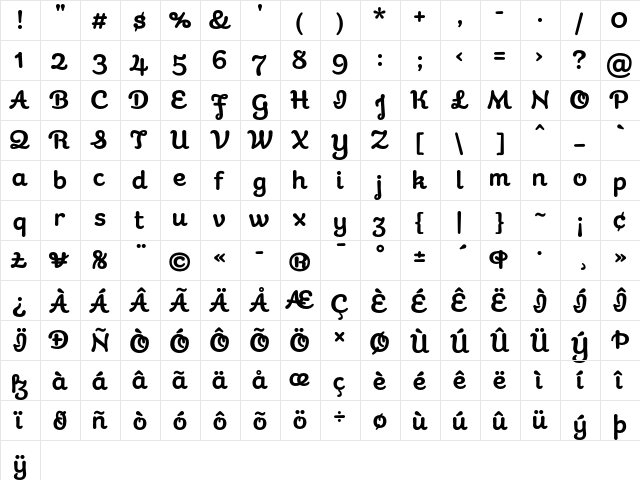
Galaxie Cassiopeia Basic Bold
Design Context for Galaxie Cassiopeia Basic Typeface
Galaxie Cassiopeia Basic is a composed and adaptable typeface that performs quietly and consistently across a wide range of design contexts. Its bold stroke weight gives it real presence on the page.